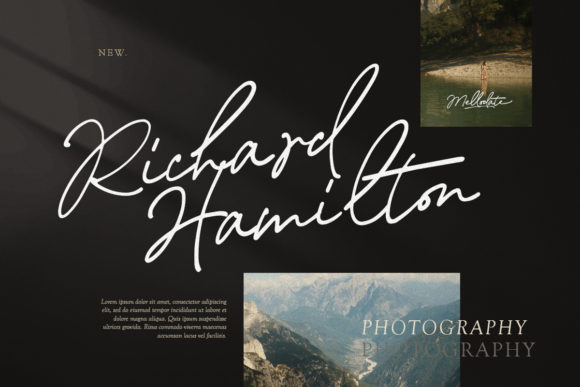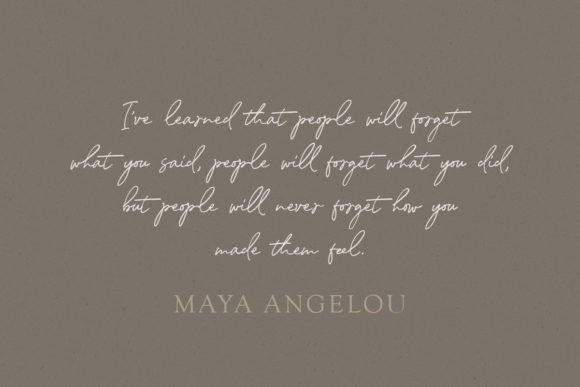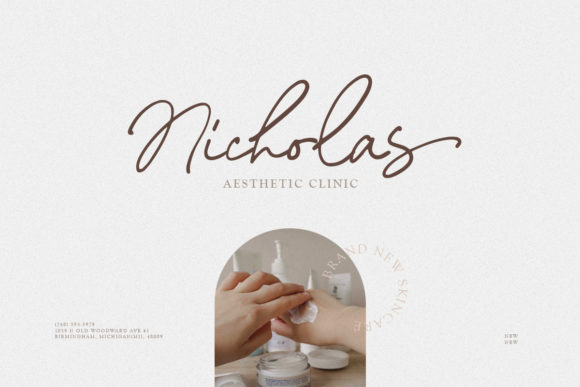
Mellodate Font
Mellodate is a beautiful and cursive handwritten font. Dainty and joyful, this font will be ideal for writing wedding invitations, cards or any other design that may need a romantic, personalized touch!